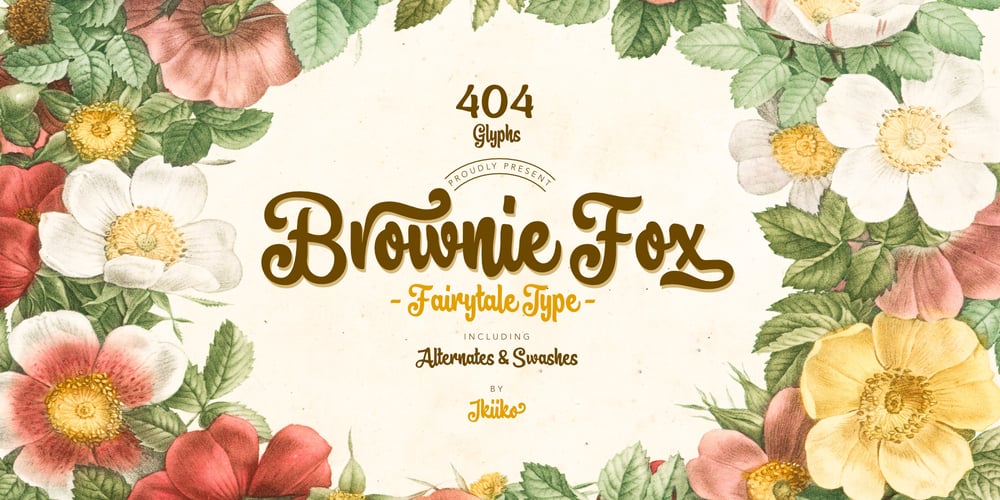
Brownie Fox Font Family was designed by Wahyu Eka Prasetya, Andhika Pradana and published by IKIIKOWRK. Brownie Fox contains 1 styles and family package options. Introducing Brownie Fox – Fairytale Typeface, created by ikiiko.A vintage & classy decorative type that reminds us of fairy tale books when we were kids. This typeface is perfect for an books cover, illustration for kids, vintage poster, vintage product, packaging design, magazine header, poster, quotes, and so much more..What’s included? Uppercase & Lowercase Number & Punctuation Alternates & Swashes Multilingual Support Get also a good offer & FREEBIE at our site : www.ikiiko.comEnjoy our font and if you have any questions, you can contact us by email : ikiikowrk@gmail.com